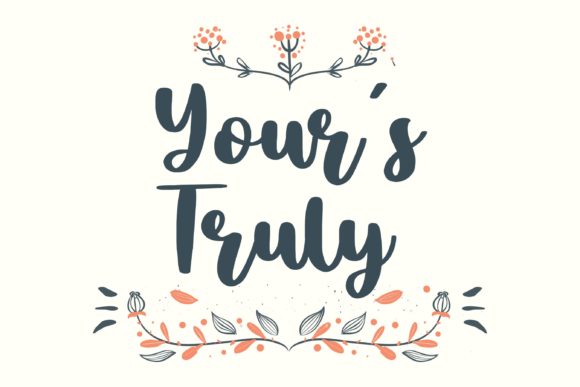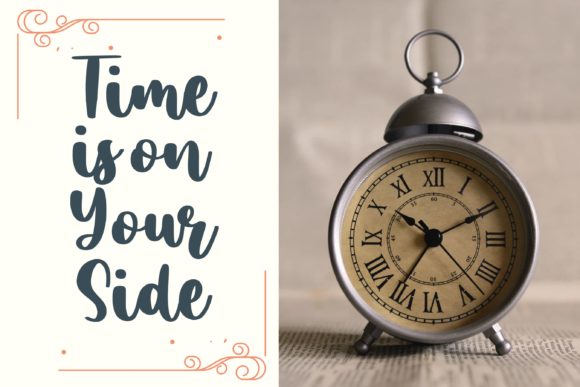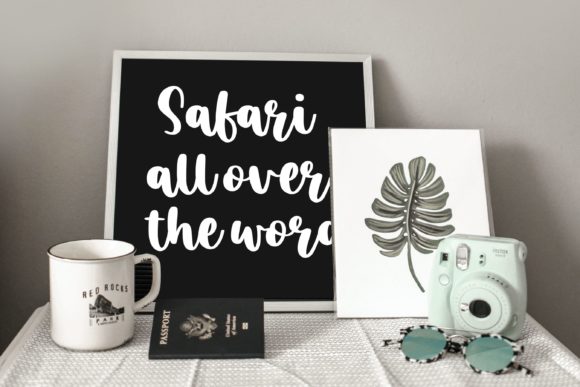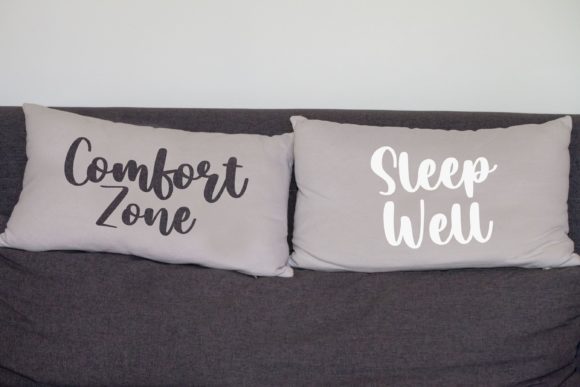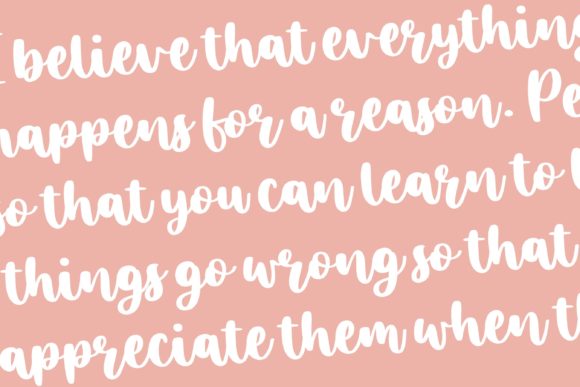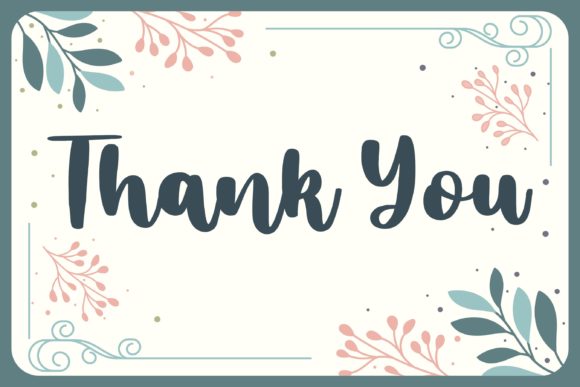
Introduction to Mariogalo Font
Have you ever found yourself in the middle of a creative project, desperately searching for the perfect font to bring your design to life? I’m sure you have. It’s that moment when everything else seems to fall into place, but the right typography is the missing piece of the puzzle. For designers, finding a font that perfectly captures the essence of their idea is a crucial part of the process. That’s why we’re excited to introduce you to the Mariogalo Font, a sweet and playful handwritten font that’s sure to become your new design BFF.
With its friendly style and versatility, the Mariogalo Font is the perfect addition to any design project, whether it’s a formal invitation or a casual social media graphic. Its high-quality design and transparent background make it a valuable resource for designers who want to add a personal touch to their work. And the best part? It’s available for free download, making it an accessible design resource for creatives of all levels.
Key Features of Mariogalo Font
- High-quality vector font designed specifically for creative projects, ideal as a design resource.
- Transparent background, allowing for easy integration into digital designs and artwork.
- Features a unique, eye-catching design that sets it apart from other fonts.
- Includes a comprehensive character set, covering a wide range of languages and special characters.
- Designed at a high resolution (300 DPI) for crisp, clear display on various devices and mediums.
- Perfect for use in digital art, graphic design, and other creative projects where a distinctive font is required.
Honest Review: Mariogalo Font
As a designer, I’m always on the lookout for high-quality design resources to elevate my creative projects. The Mariogalo Font caught my attention, and I decided to give it a try.
- The Mariogalo Font is incredibly versatile, suitable for a wide range of creative projects.
- The font’s high-quality design makes it perfect for use in digital and print projects.
- The transparent background option allows for seamless integration with other design elements.
- The font’s limited character set may not be ideal for projects requiring extensive text support.
- The Mariogalo Font may not be suitable for use in complex layouts or designs requiring multiple font sizes.
Overall, I’m impressed with the Mariogalo Font’s potential as a design resource. While it may have some limitations, its high-quality design and versatility make it a great addition to any designer’s toolkit. With a free download option available, it’s definitely worth checking out.
Tips for Getting the Most Out of Mariogalo Font
To get the most out of the Mariogalo Font, use it in combination with other high-quality design resources. Experiment with different font sizes, colors, and styles to create visually appealing designs.
The Mariogalo Font is ideal for use in a variety of creative projects, including graphics, logos, and typography-based designs. It’s also a great resource for designers looking to add a unique touch to their projects.
Alternatives to Mariogalo Font
Comic Sans MS is a sans-serif font that is often used for casual and informal designs. It is ideal for creative projects that require a friendly and approachable tone. This font is available for free download and is suitable for various design resources.
Comic Sans MS is similar to Mariogalo Font in its playful and informal nature. However, it lacks the high-quality feel and transparent background that Mariogalo Font offers.
Pacifico Font is a beautiful script font that is perfect for design projects that require elegance and sophistication. It is a high-quality font that is ideal for various design resources, including logos, business cards, and invitations.
Pacifico Font is more elegant and refined than Mariogalo Font, making it a great alternative for designs that require a touch of sophistication.